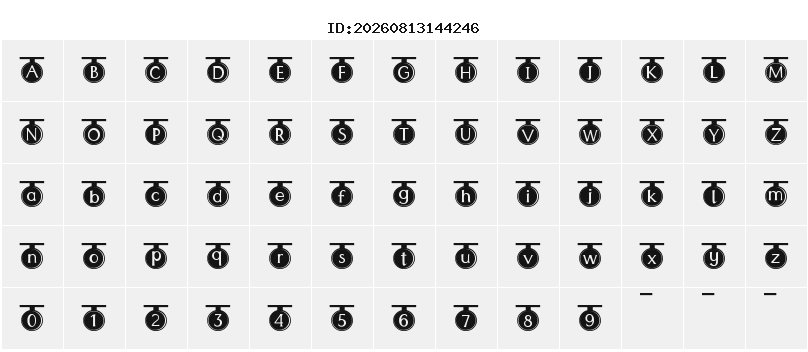
About Party Time.ttf
Party Time.ttf is a modern, elegant sans-serif font designed for ultimate readability and visual harmony. Perfect for branding, headlines, web design, and print materials.